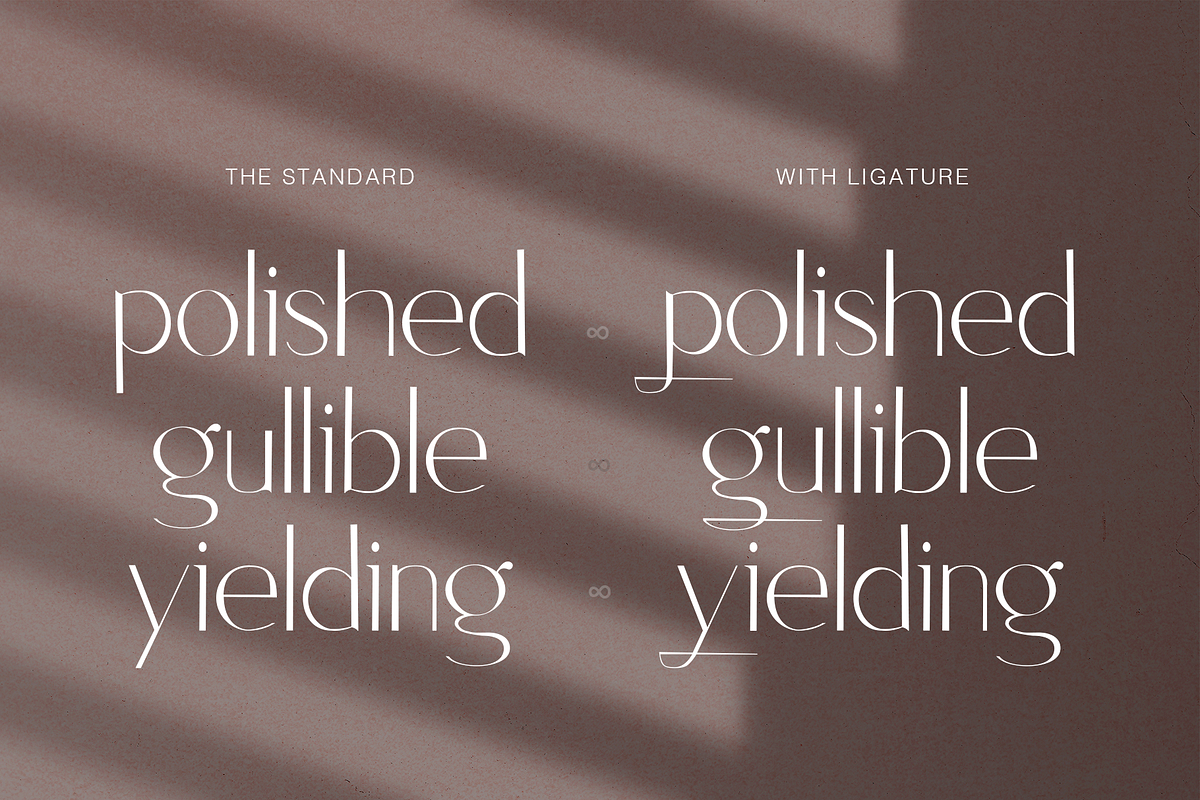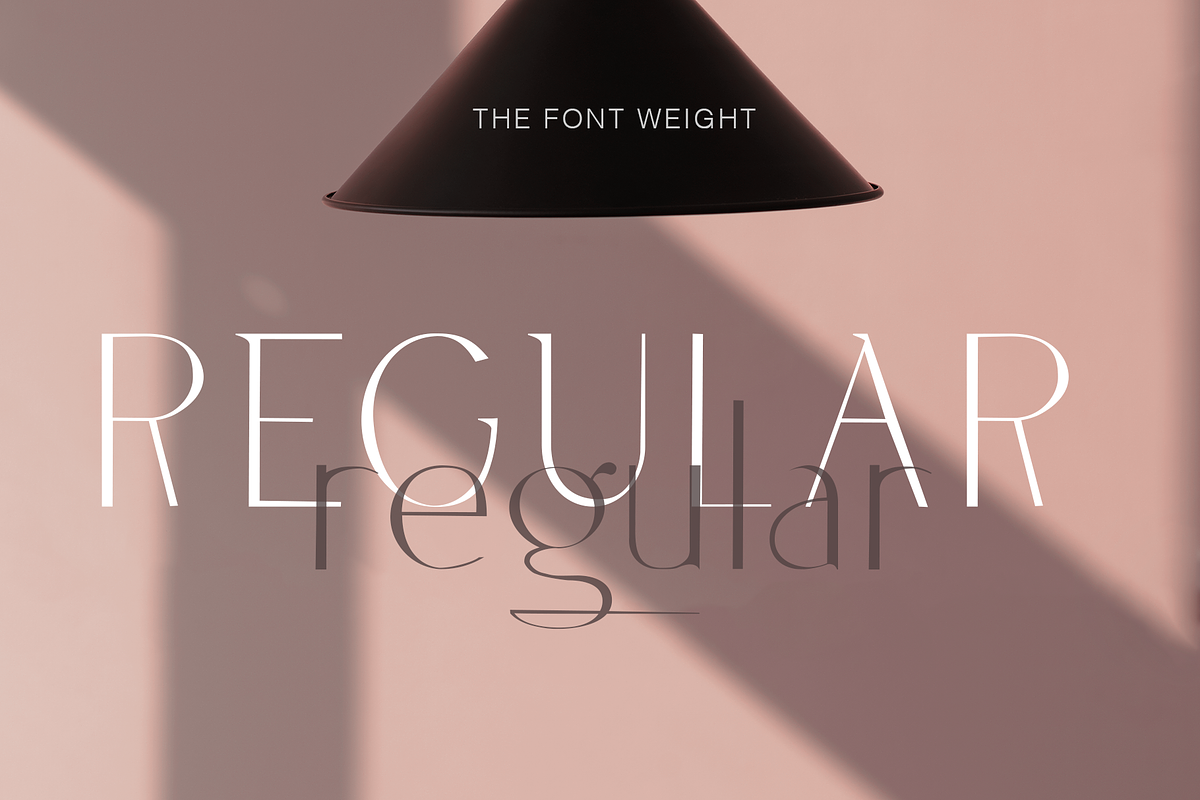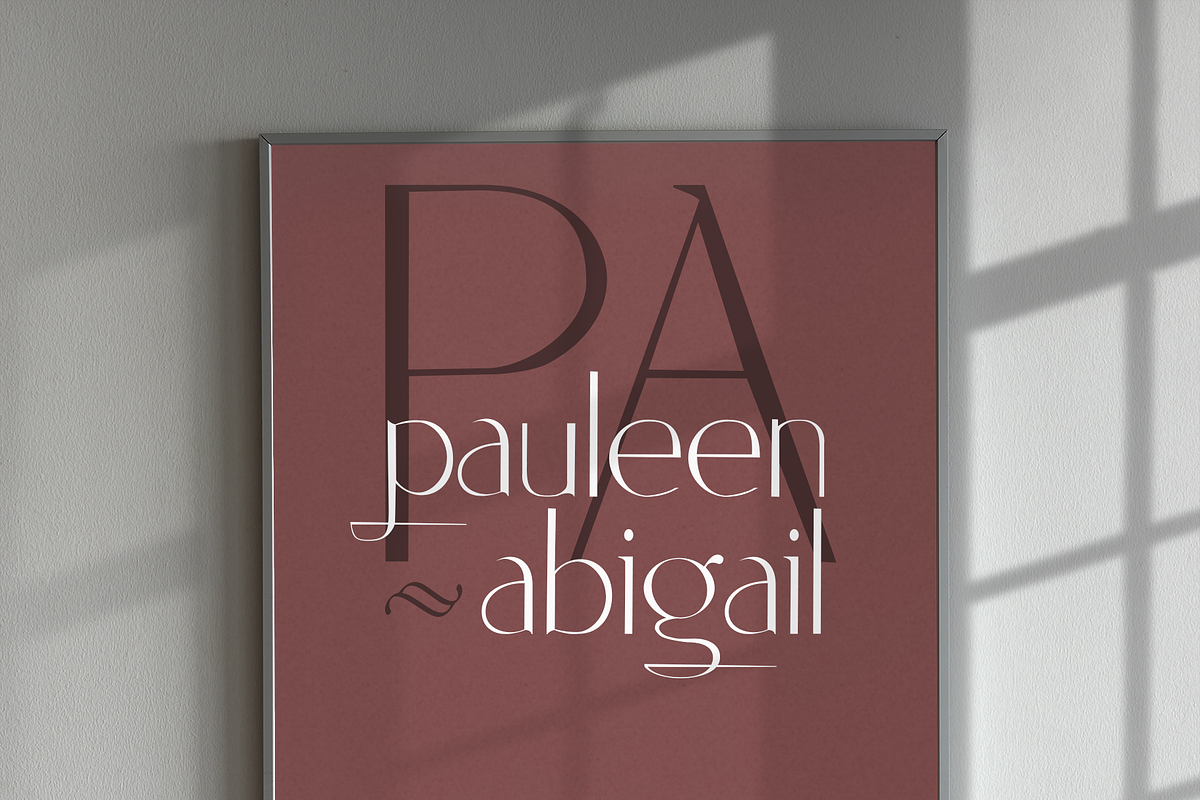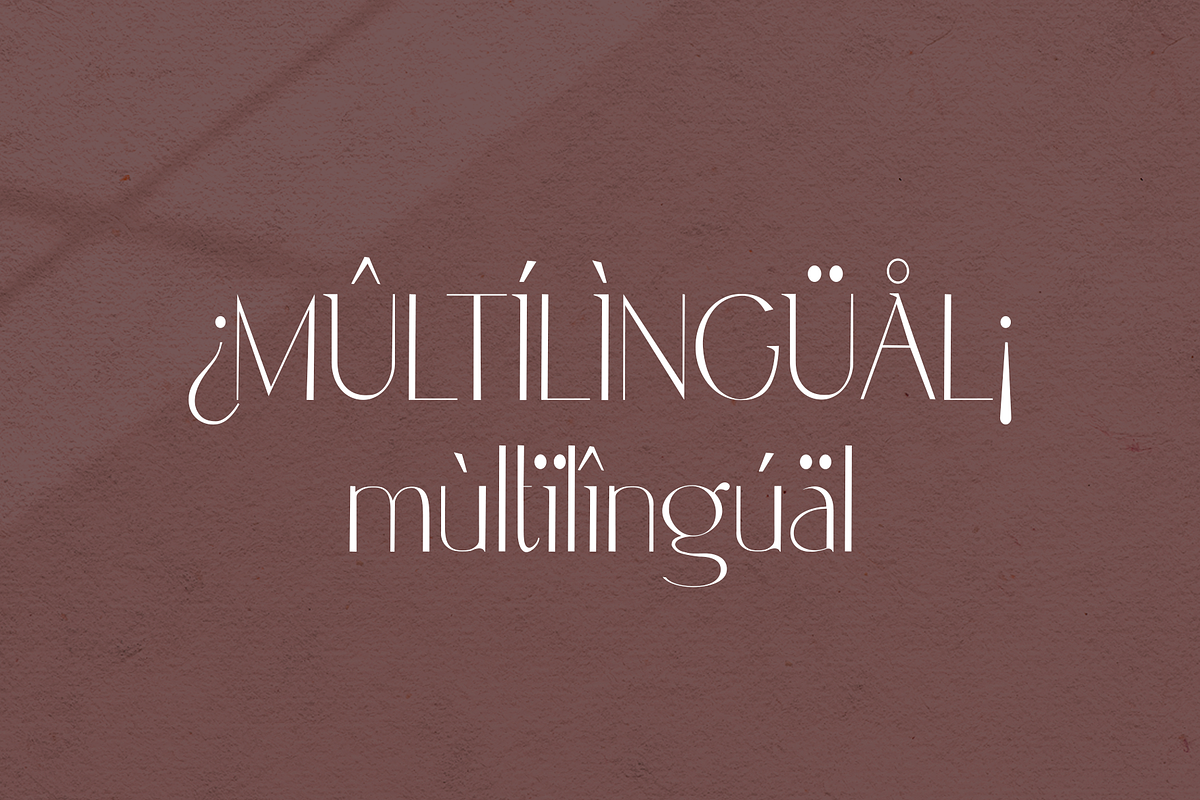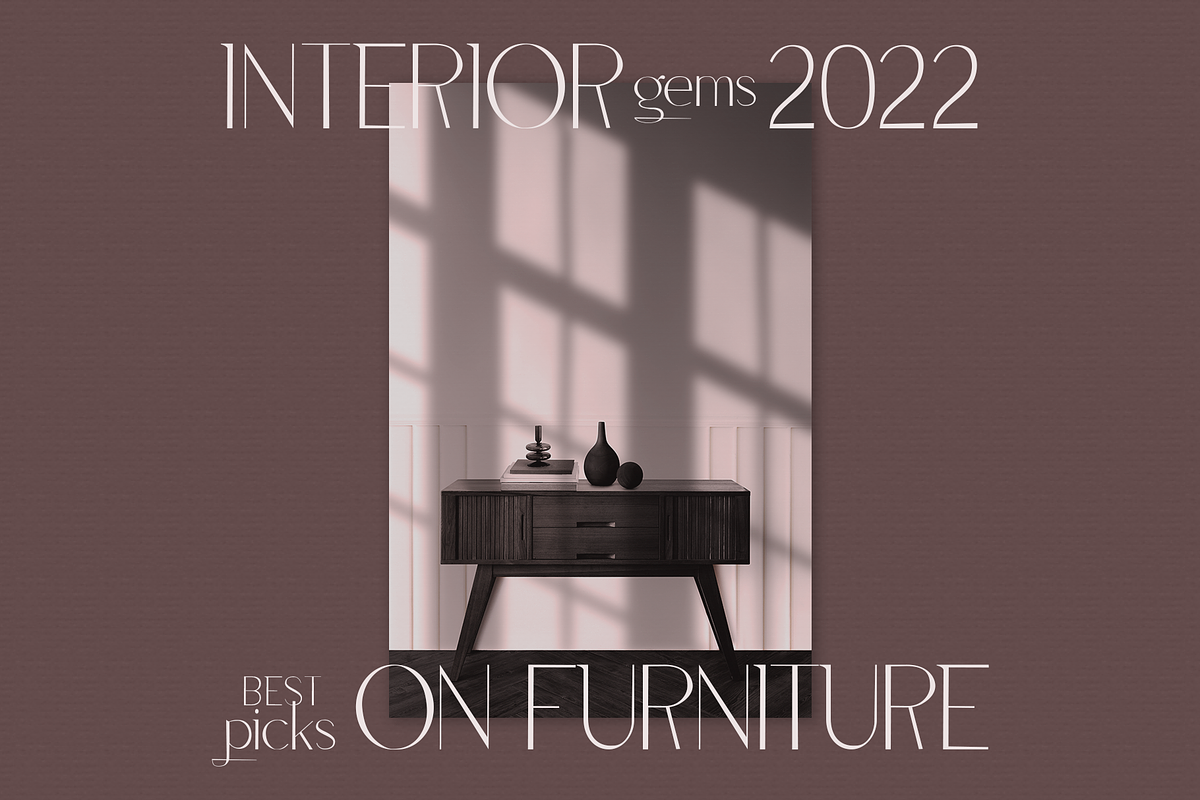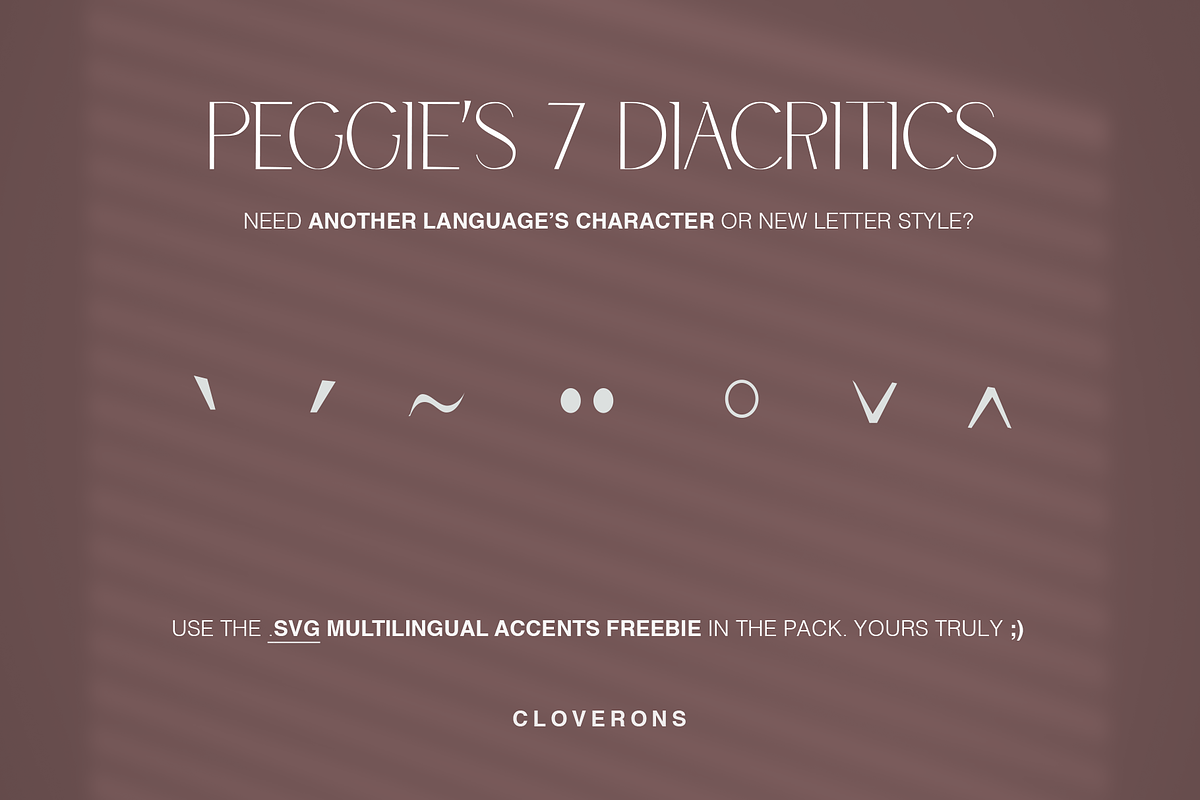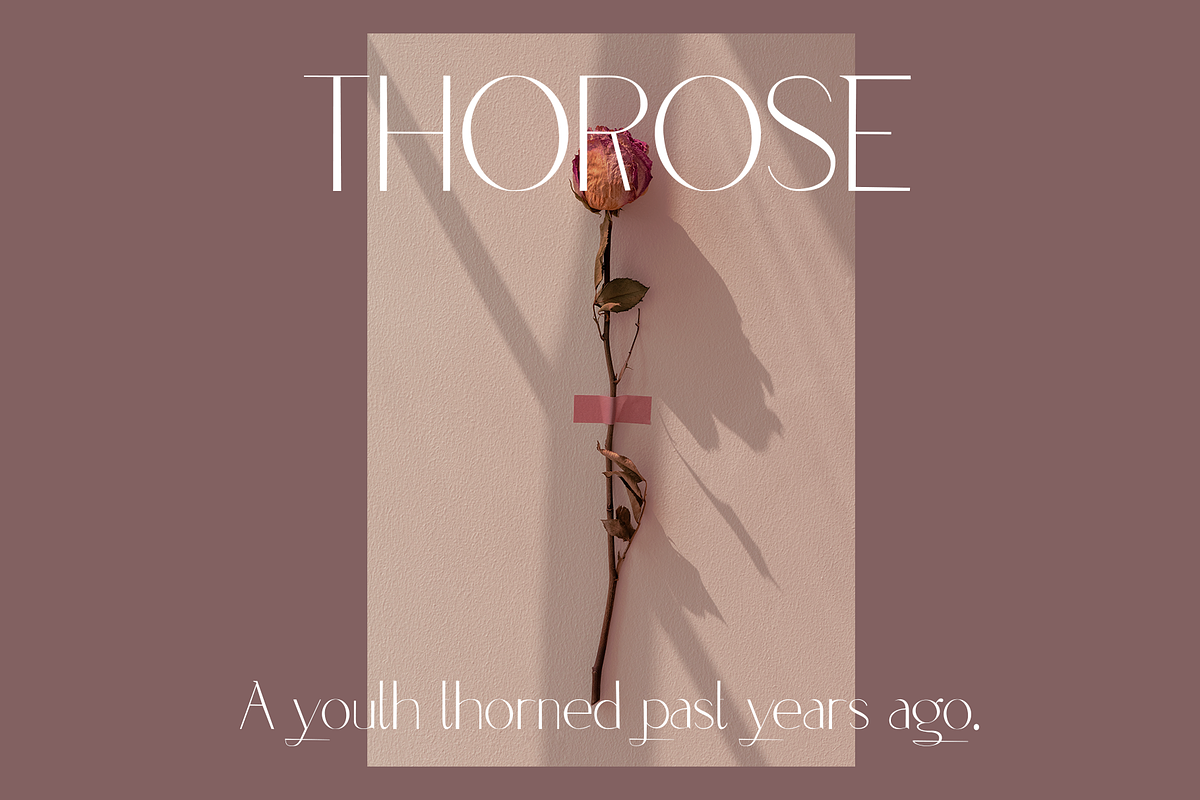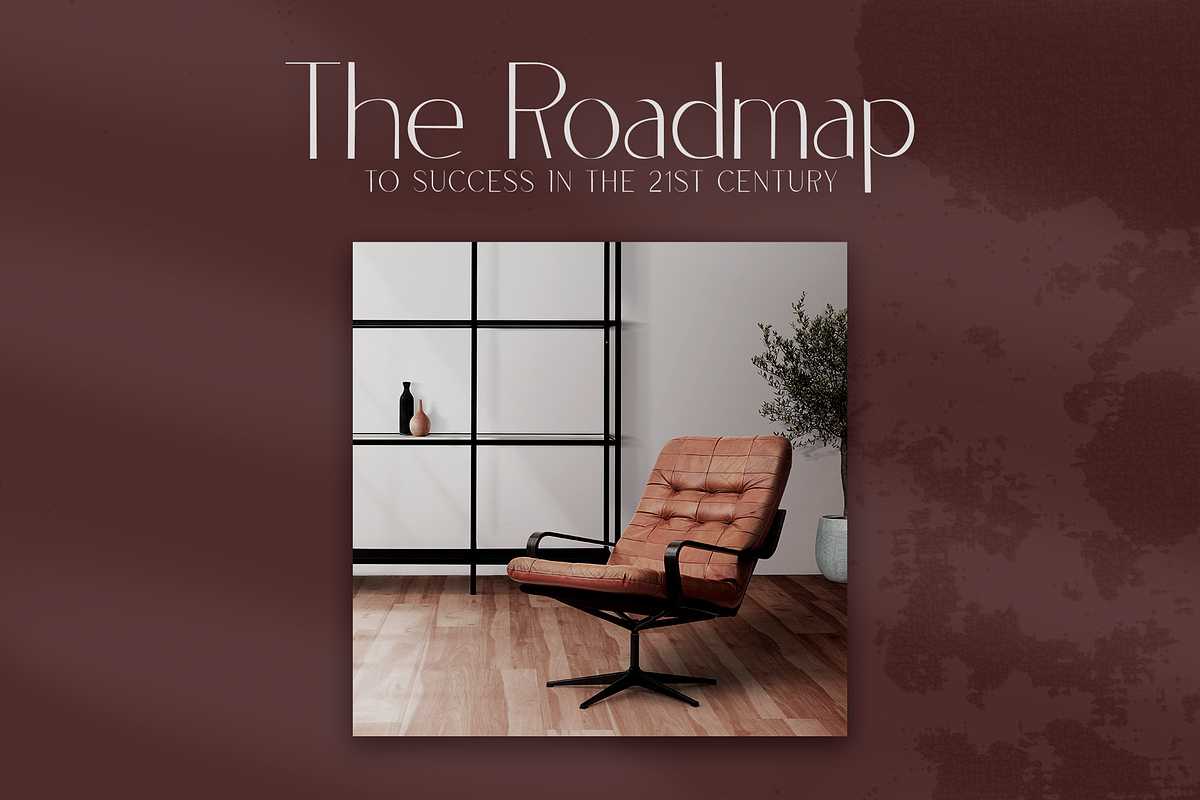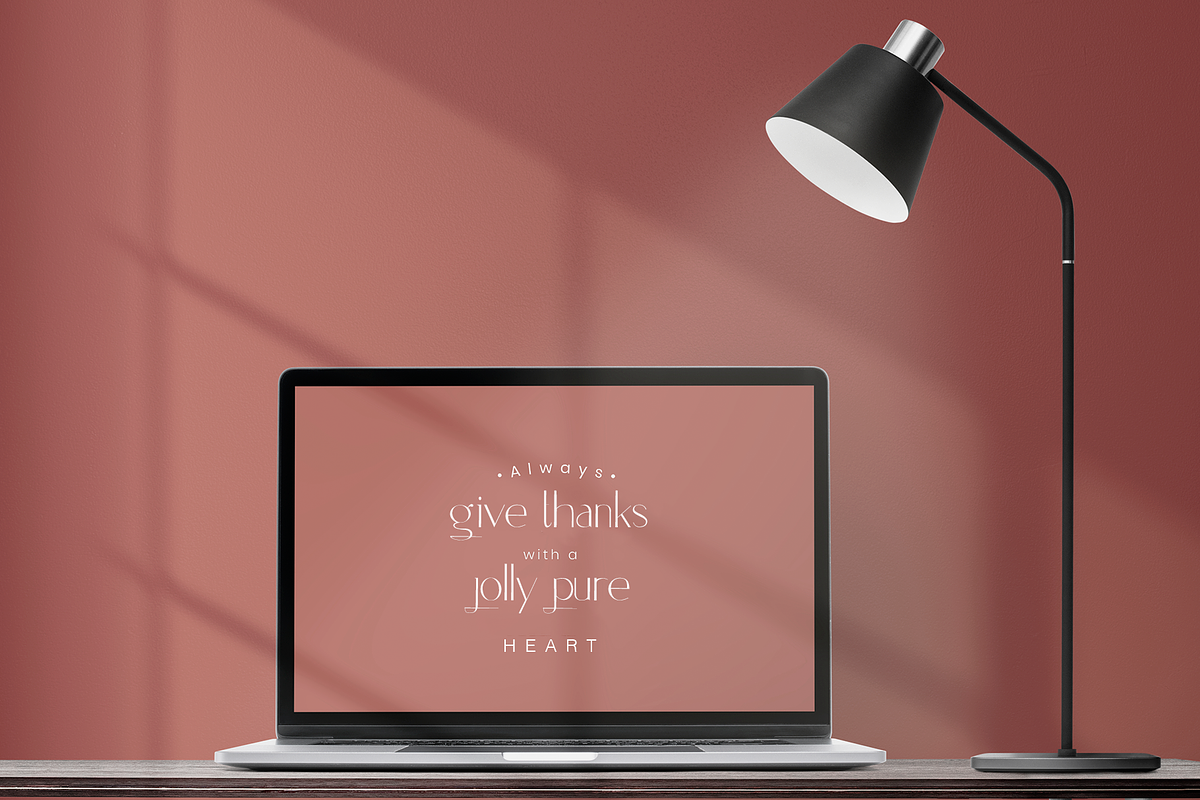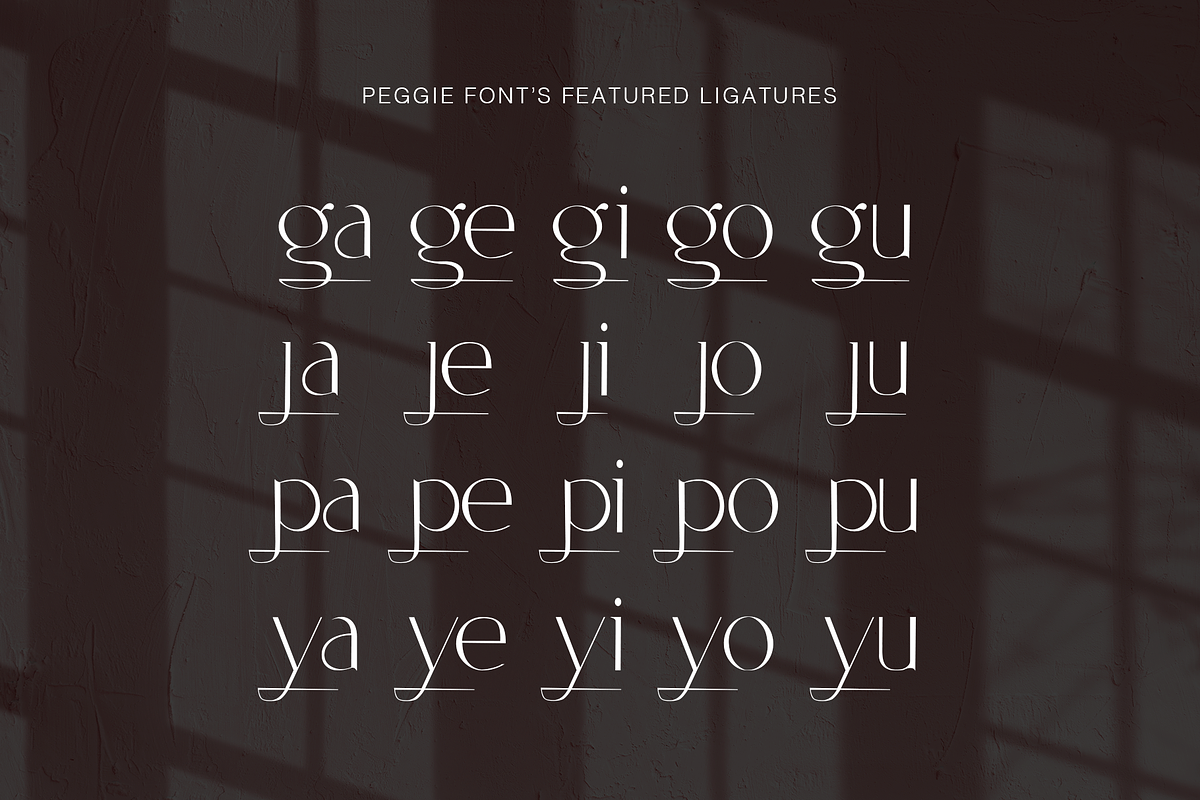
Peggie - Light Modern Sans Display
Meet Peggie, a new sans serif display typeface of the 21st century. It has modern light letter accents and comes with uniquely designed descender-vowel ligatures combinations. It's a very versatile font that works as standalone or paired with other fonts. It is a great design choice for branding, logo, labels, packaging, magazine headers & so much more.
Why Labeled Sans Display?
They are not optimal for reading, in 14 points and below which is the standard for a sans serif typeface; but are inspired with the sans serif modern, clean look with added feminine personality brought by their rich ligature nature. They are most optimal for Headers, logos, and big typographic elements to convey a meaning to your audience and grab their attention in a minimalistic way.
- Weight - Regular
- Lowercase & Uppercase
- Stylized Descender + Vowel Ligatures
- Numerals &Punctuation
- Multilingual Characters